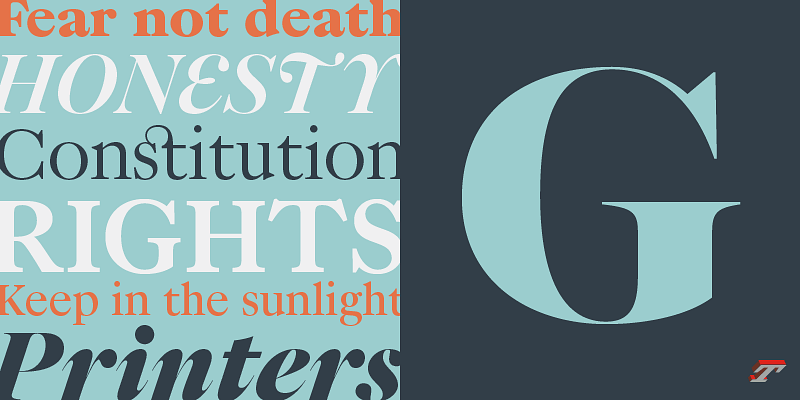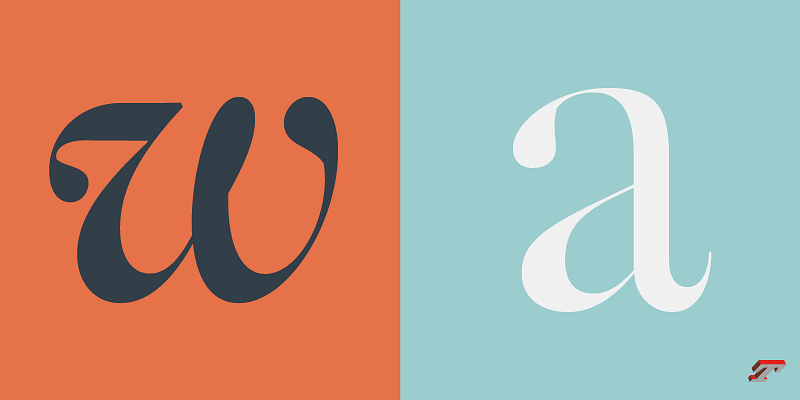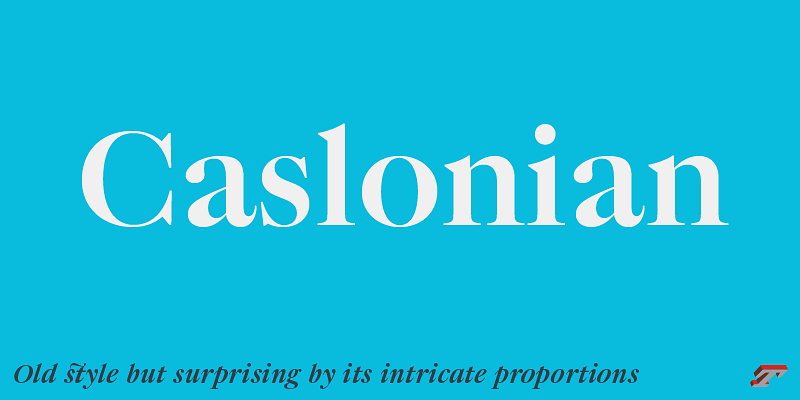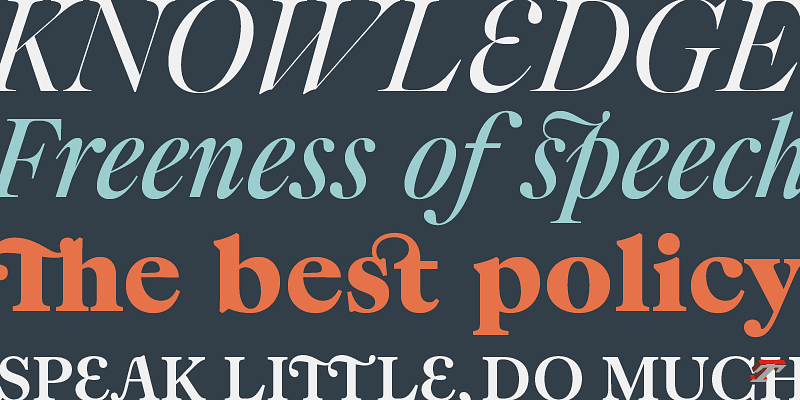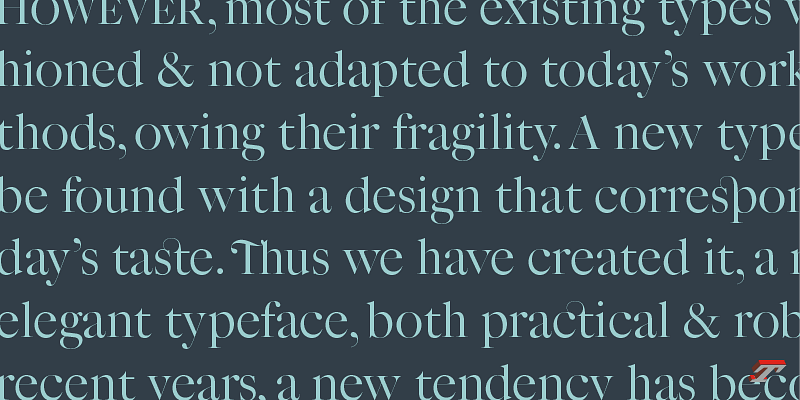
Caslonian is an English-inspired typeface, which echoes the period of transfer letters, phototype that allowed incisive headlines settings in design and advertising; a typeface that by its contrasts and sometimes excessive proportions will be pleasant to the eye.
The initial concept was to draw a Caslon that values certain contrasts of proportions that appear in large sizes. Drawing Caslonian with this objective is both to establish everything that makes a Caslon, while exaggerating certain details, certain proportions that will make it more Caslon than a purist revival, as close as possible to a particular Caslon cut. <br.
Caslonian Open was added, that allows the illuminated open part of the letter to be in different color when they are superimposed. The size of the empty-open parts adapts to each styles. The diacritics of the capitals have been drawn shorter to help the tight line spacing of capitals, particularly useful on the cover of magazines.